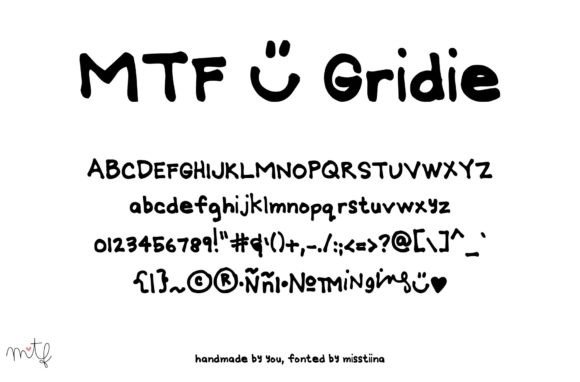
Introducing Gridie, the Striking Display Font That Will Make Your Designs Crave Attention!
In a world saturated with visual noise, capturing attention has become more challenging than ever. That's where Gridie steps in, a game-changing font that commands attention with its bold and captivating presence. Created by the visionary Miss Tiina, Gridie is a thick display font designed to make your designs shine brighter than a supernova.
Go beyond the ordinary and embark on a creative journey with Gridie. Unleash its potential on product packaging, name tags, business cards, menus, book covers, and any other design that demands a distinct and eye-grabbing touch. With Gridie, you're not just creating designs; you're crafting unforgettable experiences that ignite curiosity and inspire action.
The versatile nature of Gridie is like a chameleon, effortlessly adapting to diverse design landscapes. Whether you're a seasoned designer or just stepping into the creative realm, Gridie empowers you to create captivating designs that resonate with your audience. From sleek and minimalist layouts to vibrant and playful compositions, Gridie molds itself seamlessly, enhancing your design vision with its inherent charm.
Embracing Gridie is like embarking on an artistic adventure, where your creativity knows no bounds. This font is a gateway to a world where bold typography meets timeless elegance. Its thick, impactful strokes exude a sense of confidence and authority, making it the perfect choice for designs that demand attention. Let Gridie be your muse, inspiring you to create designs that capture hearts and leave a lasting impression.